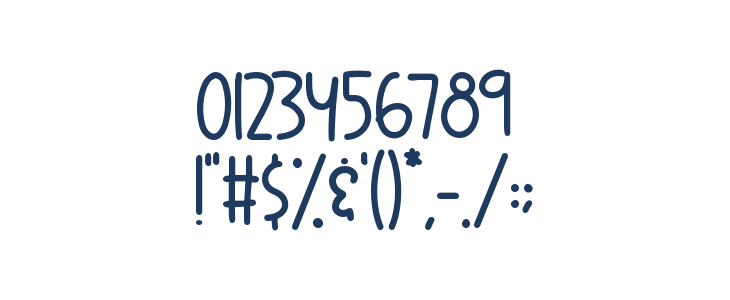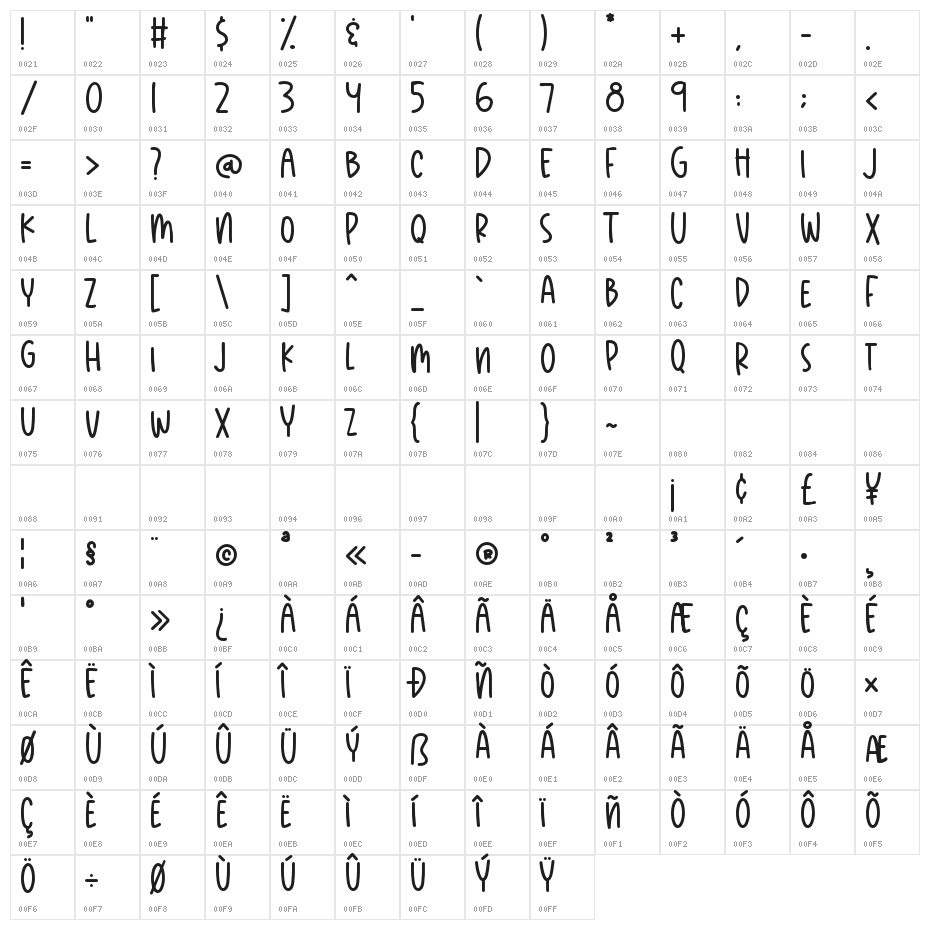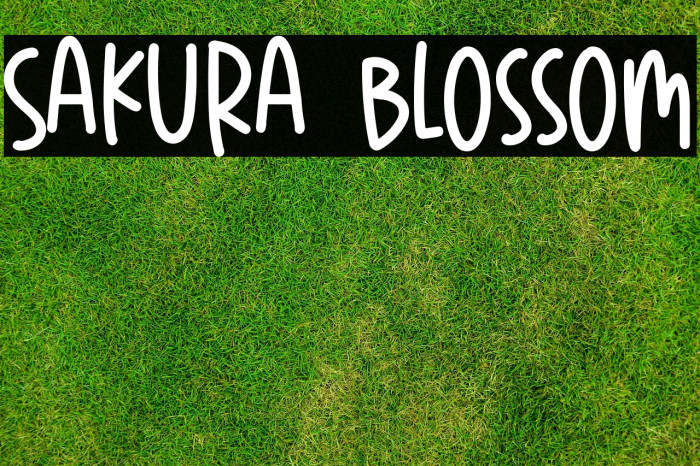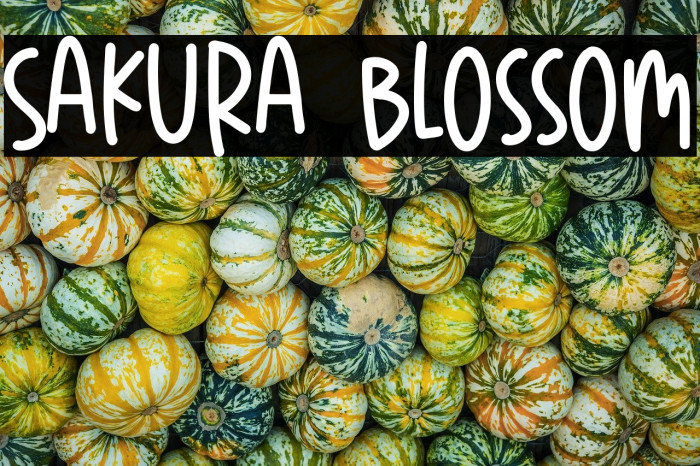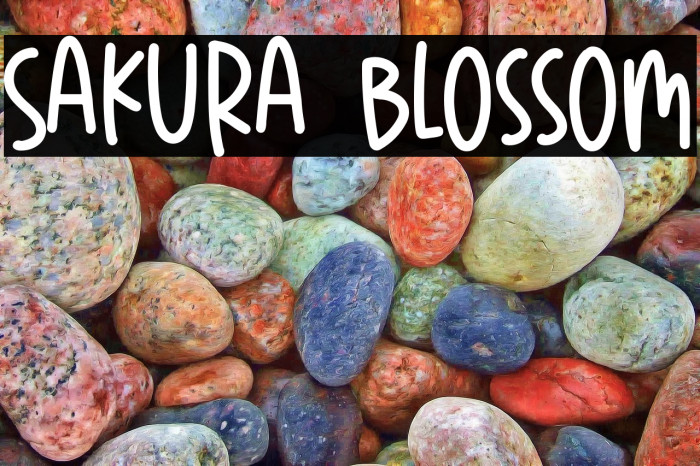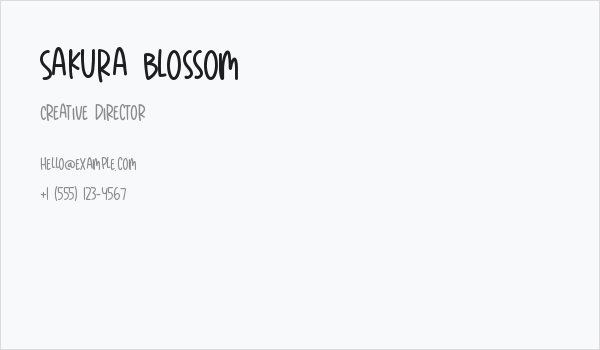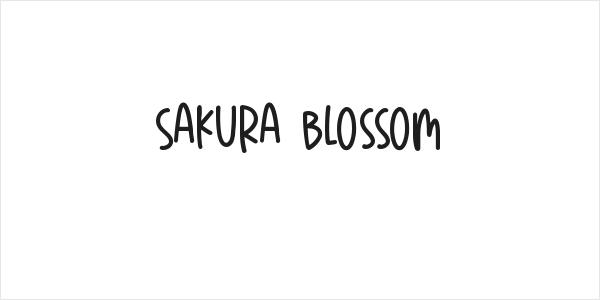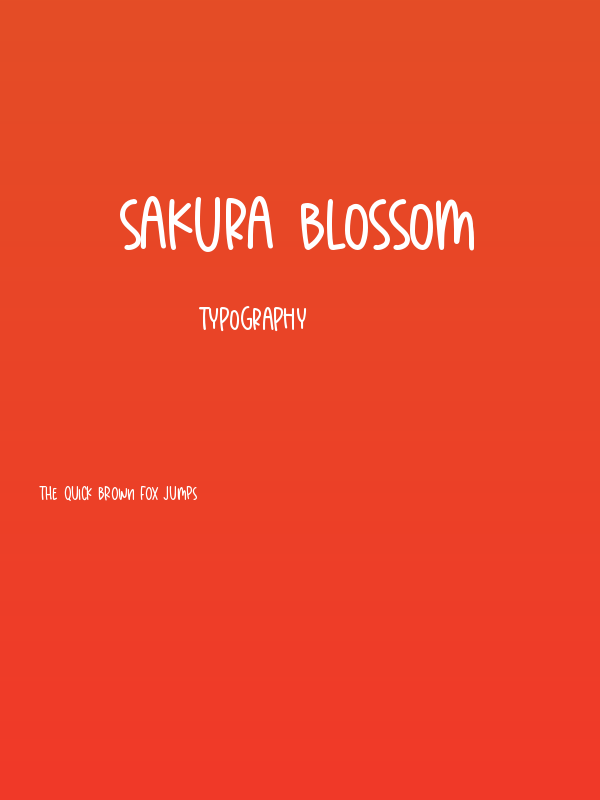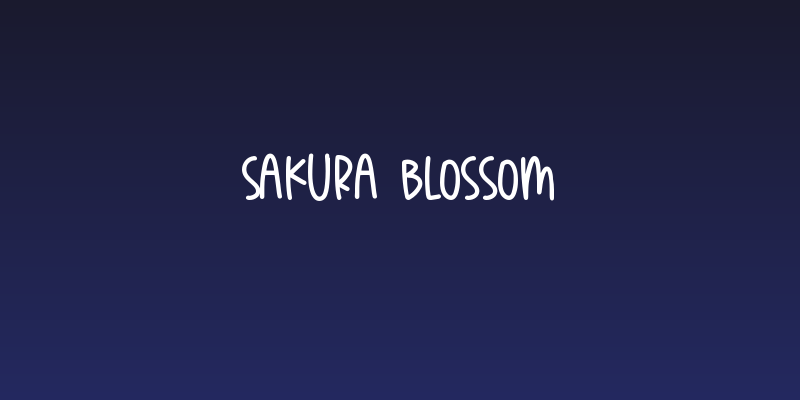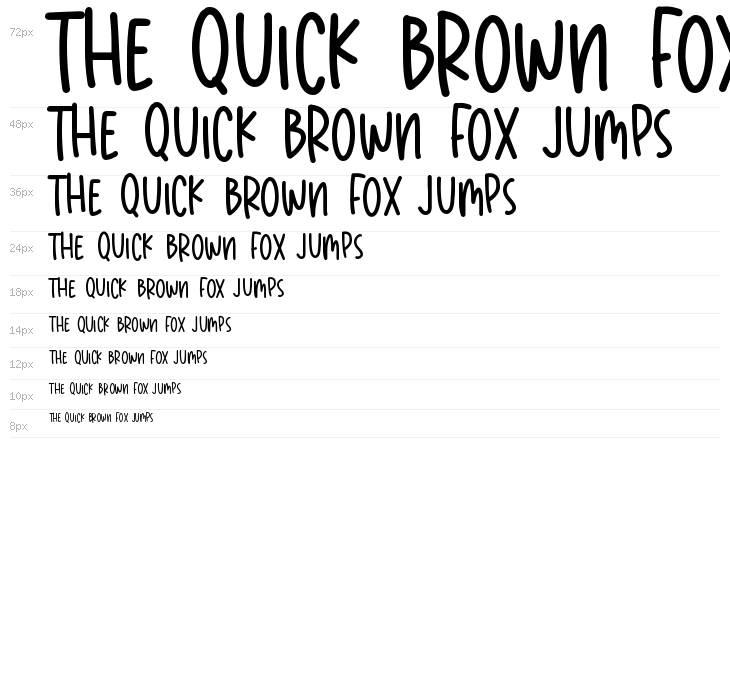
Sakura Blossom Font
Sakura Blossom Description
This playful and energetic font features a handwritten style with bold, rounded strokes. The characters are slightly irregular, giving it a casual and friendly appearance. The uppercase and lowercase letters are distinct yet harmonize well together, while the numbers and special characters maintain the same lively aesthetic. The font's overall look is approachable and informal, making it ideal for projects that require a personal touch. Its legibility is enhanced by the consistent stroke width and clear character shapes.